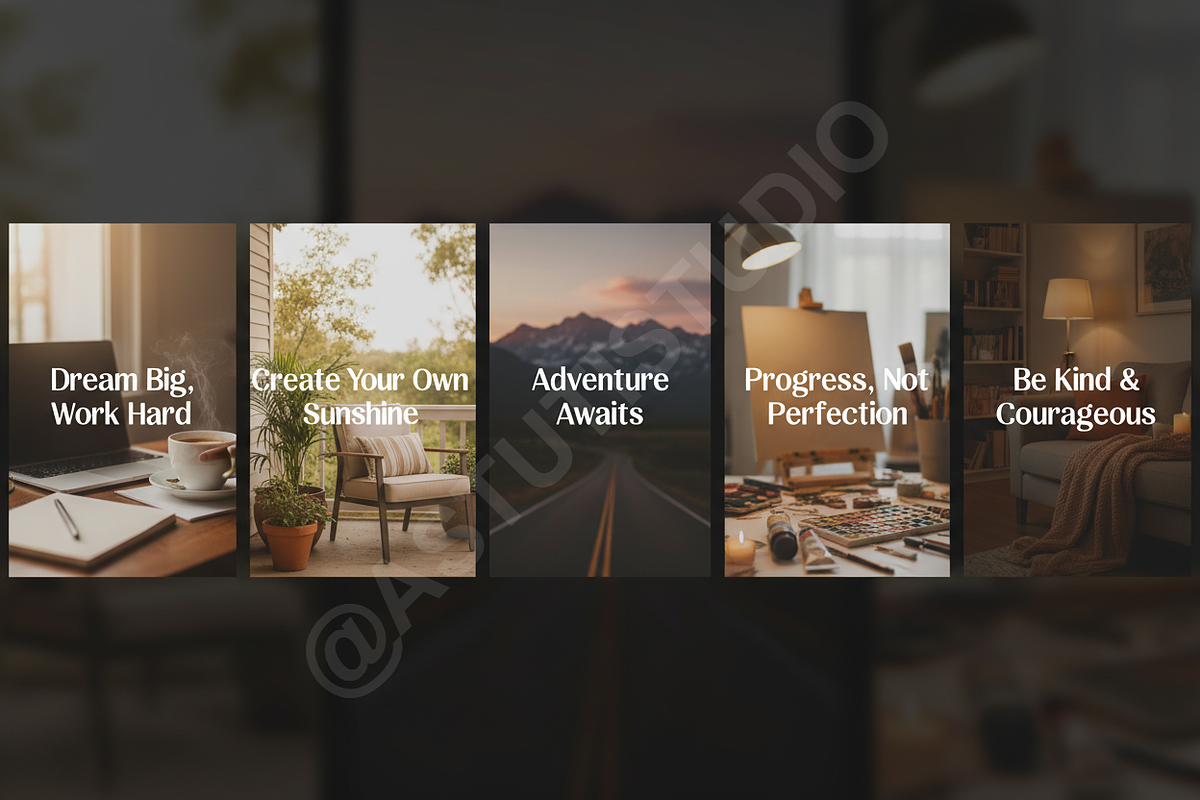
Hesapu - Sophisticated Modern Serif
INTRODUCTION
Elevate your creative vision with Hesapu, a high-end serif typeface meticulously crafted for those who demand excellence. Defined by its graceful proportions and sharp details, Hesapu embodies the essence of luxury and modern sophistication. Whether you are crafting a high-fashion editorial or a minimalist brand identity, this font provides the perfect balance of authority and elegance.
IDEAL FOR
- Luxury Branding and Identity
- Editorial Layouts and Magazine Design
- High-End Social Media Content
- Wedding Stationery and Invitations
- Logo Design and Professional Typography
- Full uppercase and lowercase character set
- Numerals and standard punctuation
- Sophisticated ligatures for a bespoke look
- Comprehensive multilingual support
- Clean and legible at both display and body sizes